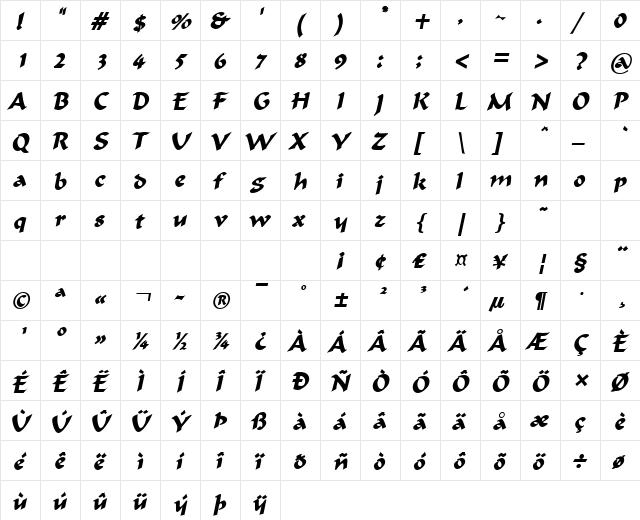
FlatBrush Bold Italic
Design Context for FlatBrush Typeface
FlatBrush brings a calligraphic fluidity to the page — its connecting strokes and expressive curves give it an unmistakably human quality. Its bold stroke weight gives it real presence on the page.
Font Pairing: Combine FlatBrush with a simple geometric sans for maximum contrast — the tension between flowing curves and clean structure is a classic typographic pairing.
Pro Tip: Use FlatBrush for short runs of text — names, titles, or taglines. Extended body copy in script faces tires the eye quickly.